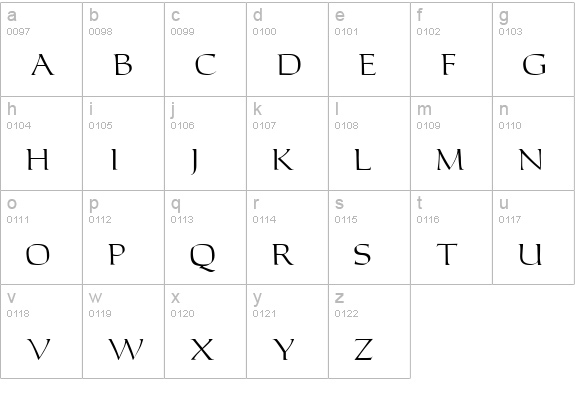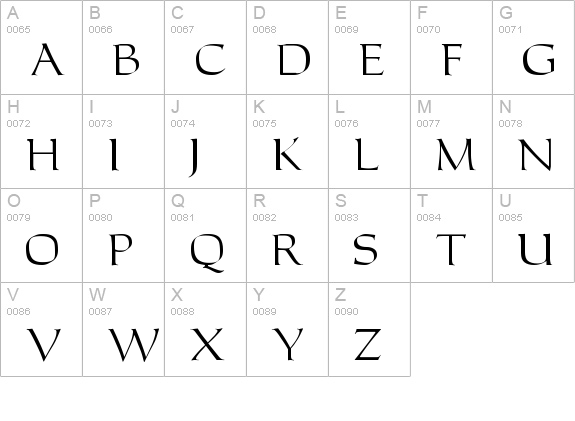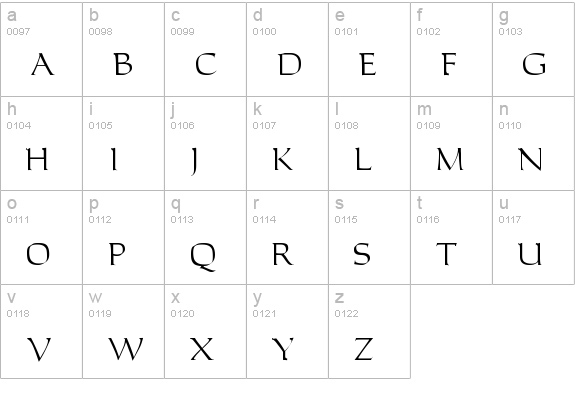
Leigh Normal is the standard, neutral variant in the Leigh typeface family \xE2\x80\x94 well suited to general body text, paragraphs, and standard typographic work.
Introducing the breathtaking Leigh Normal font, a true gem in the world of typography. With its elegant curves and clean lines, this font exudes a sense of sophistication and professionalism that is second to none. Whether you're designing a logo, creating a branding package, or working on a marketing campaign, Leigh Normal will effortlessly elevate your projects to new heights. But what makes this font truly extraordinary is its availability. Yes, you heard it right – Leigh Normal is free! Thanks to the generosity of FontsMarket.com, this remarkable font can be freely downloaded, giving you the opportunity to enhance your designs without breaking the bank. Featuring an extensive character set, Leigh Normal offers endless possibilities for your creative endeavors. Its versatile nature allows it to seamlessly blend into any design aesthetic, whether it be modern or classic, bold or subtle. The sharp and crisp letterforms ensure optimal legibility, making it suitable for various applications across print and digital media. But Leigh Normal is more than just a font – it's a statement. Its timeless beauty and timeless appeal will captivate your audience and leave a lasting impression. From elegant invitations to eye-catching headlines, Leigh Normal effortlessly transforms your words into a visual masterpiece. So why wait? Don't miss out on this incredible opportunity to enhance your design projects with the exquisite Leigh Normal font. Download it for free at FontsMarket.com and unlock a world of endless creativity. Take your designs to the next level and let Leigh Normal be your secret weapon for success.